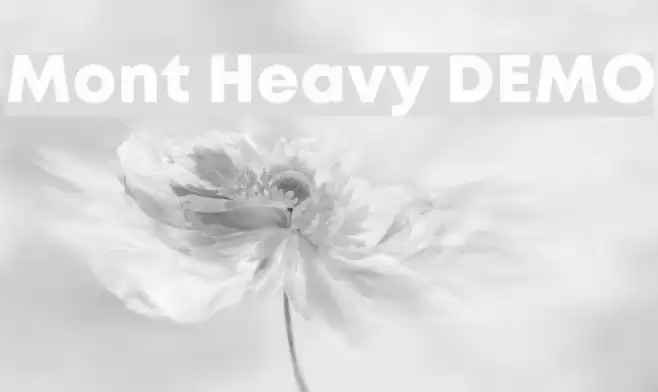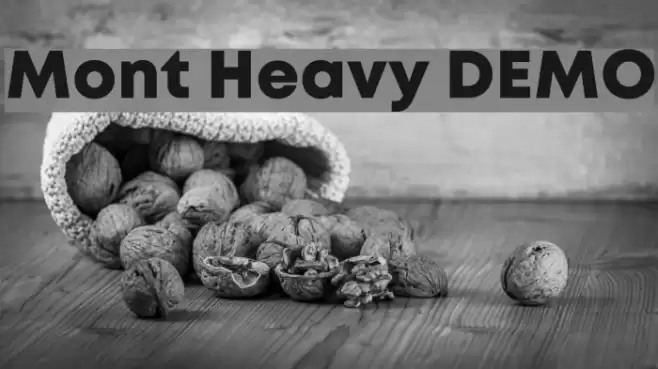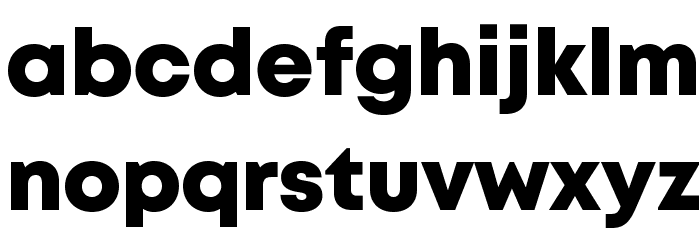
Mont Heavy DEMO Font
Mont Heavy DEMO Description
This font is a bold, sans-serif typeface characterized by its strong, geometric shapes and clean lines. The uppercase and lowercase letters are well-proportioned, with a uniform stroke width that gives it a solid and impactful appearance. The numerals are clear and easily distinguishable, maintaining the same boldness as the letters. Special characters are included, providing versatility for various uses. The overall design is modern and minimalistic, making it suitable for contemporary design projects.
A bold, modern sans-serif font with geometric shapes and clean lines from Uncategorized fonts.
- Proposed Projects: Ideal for branding, headlines, posters, and digital media where a strong visual impact is needed.